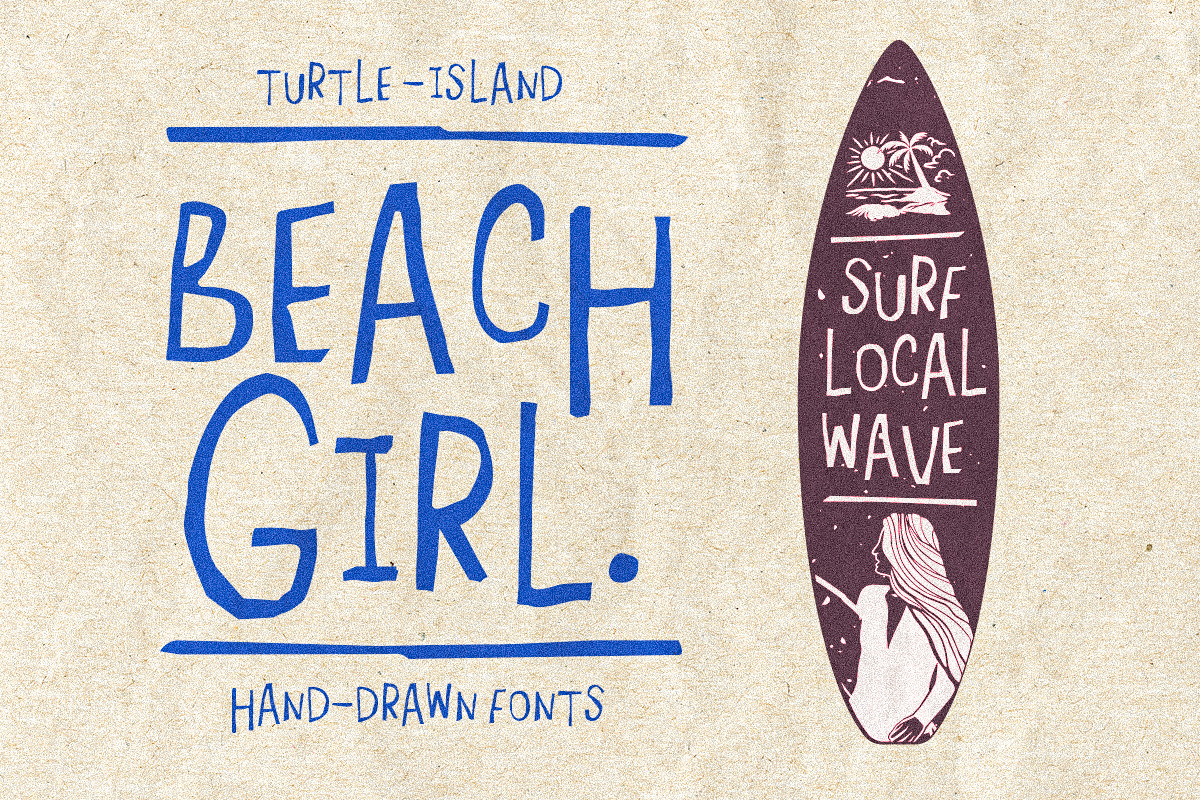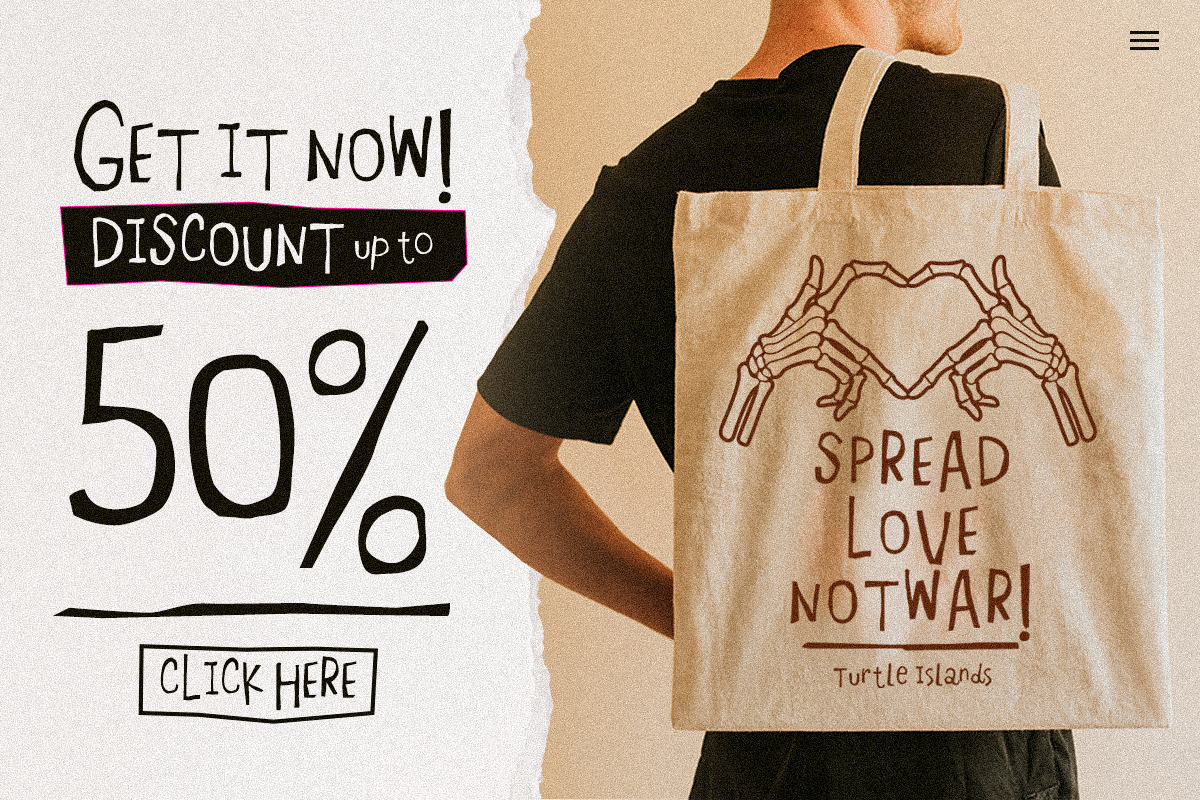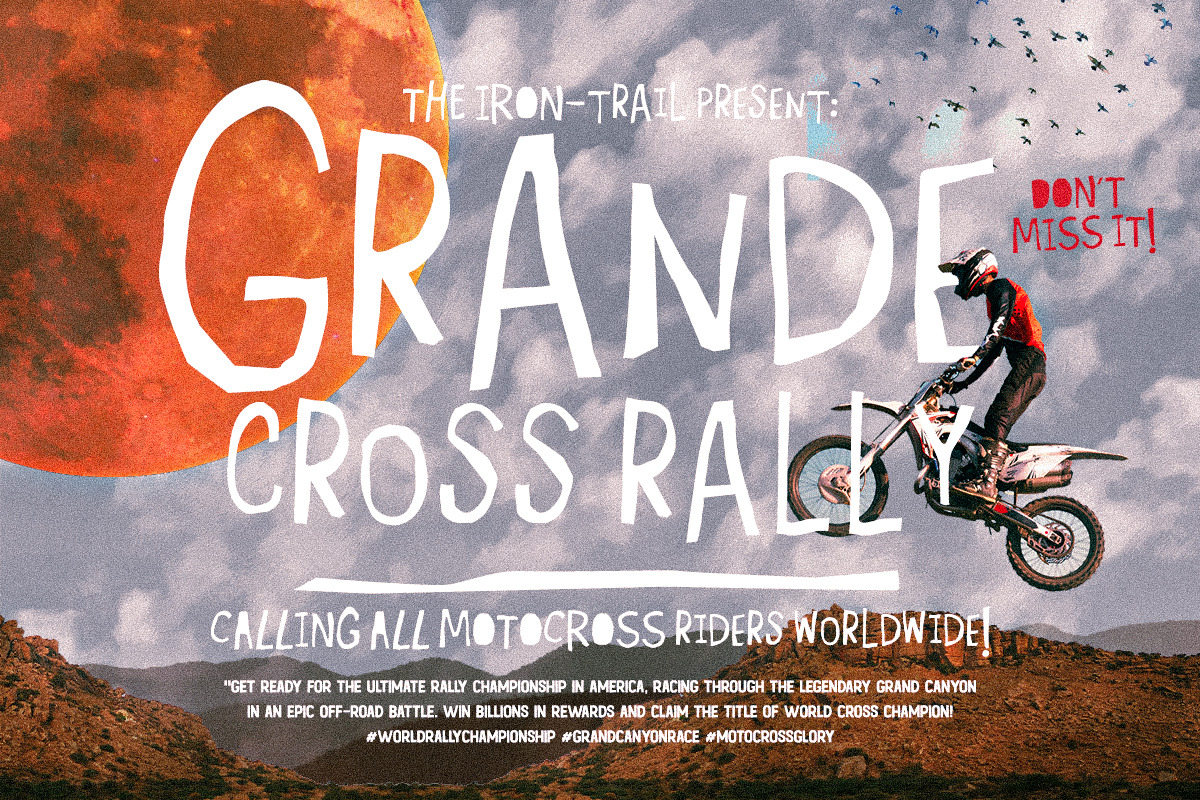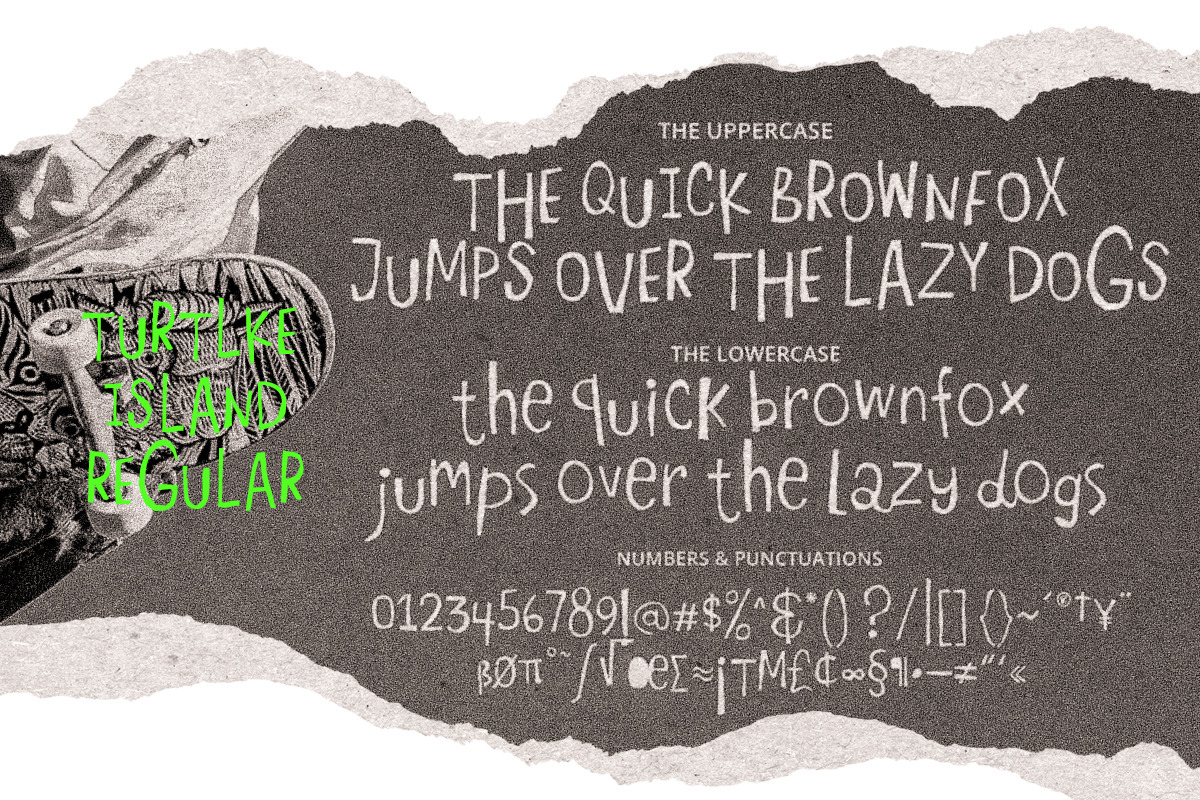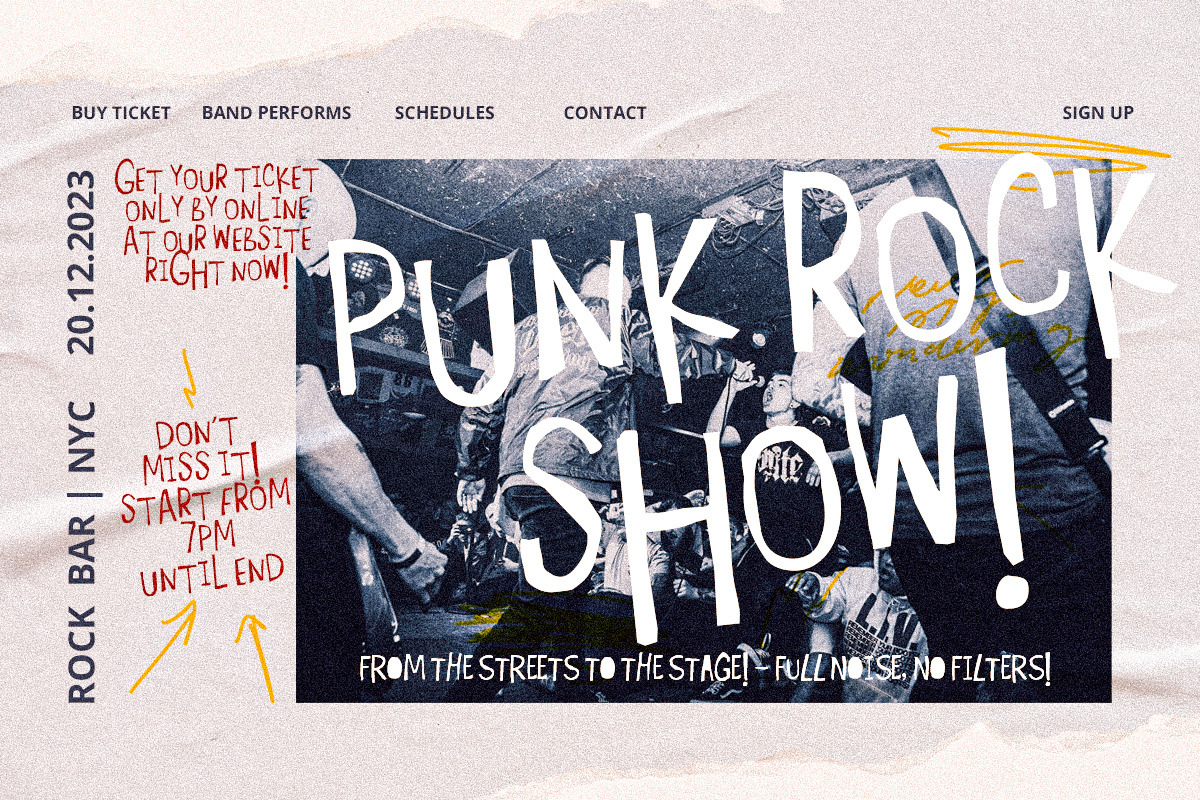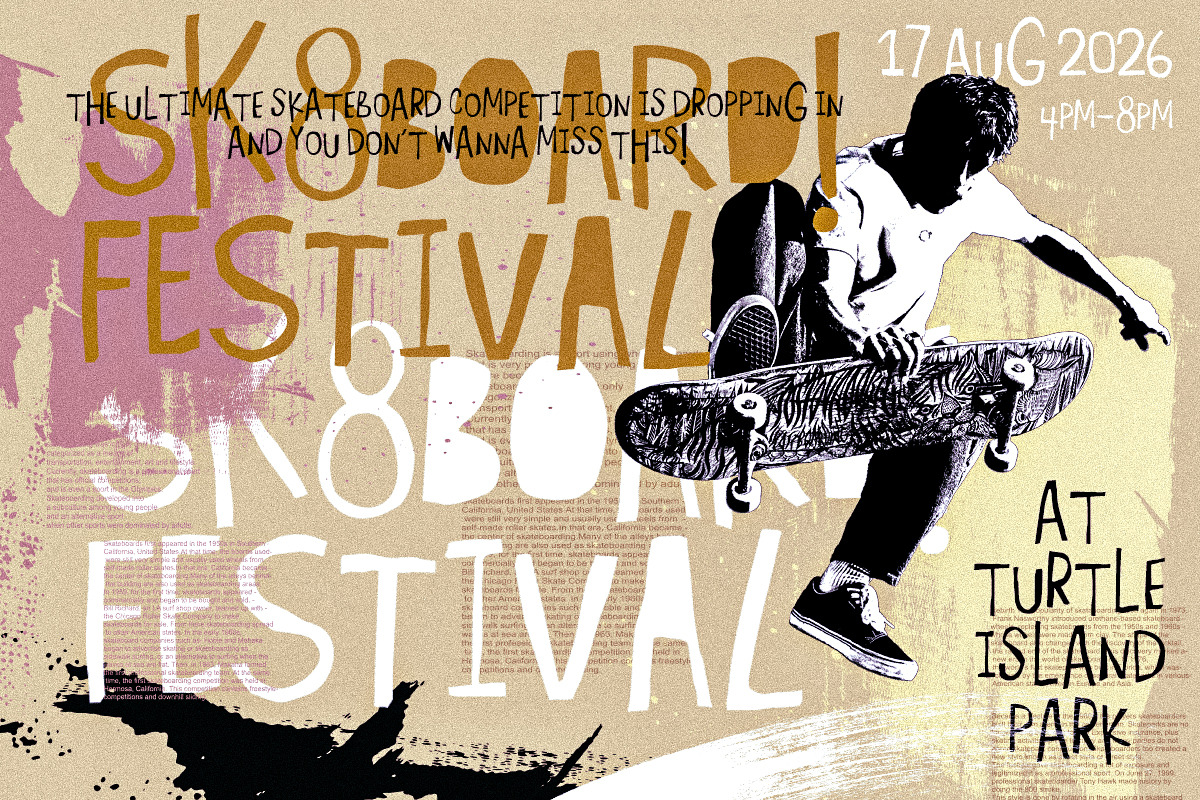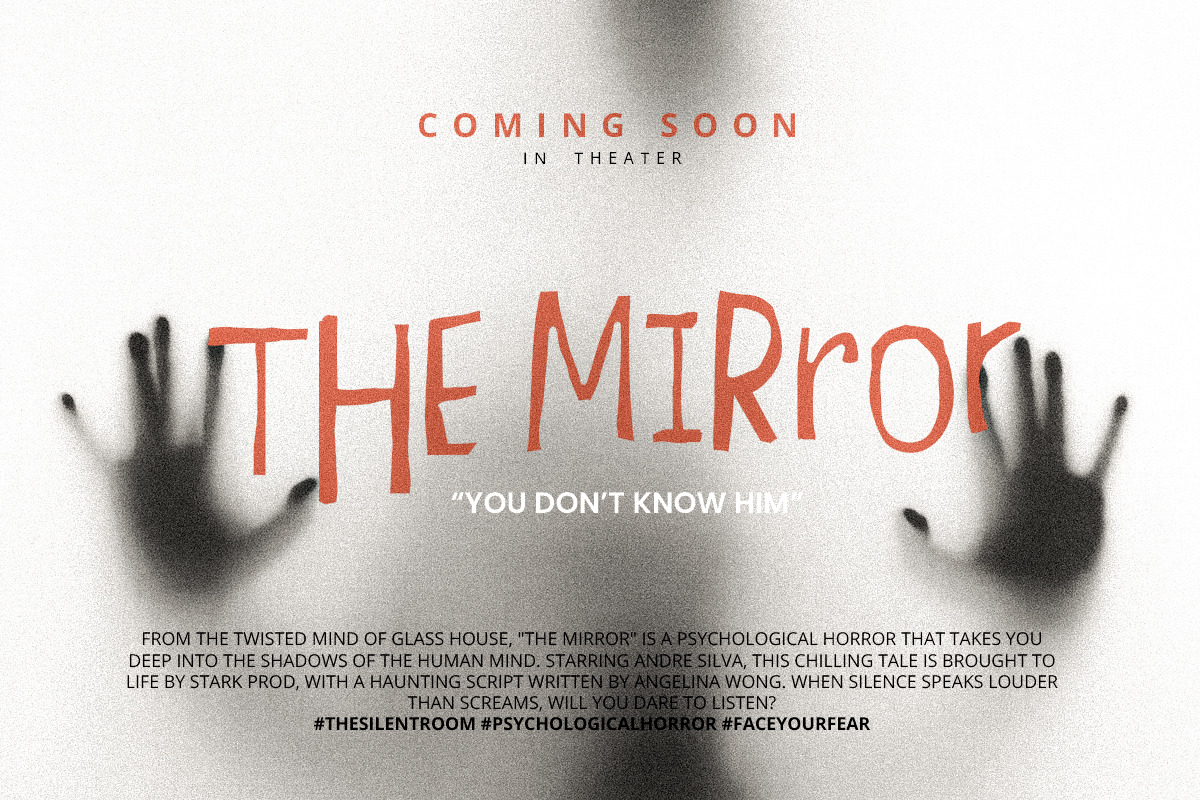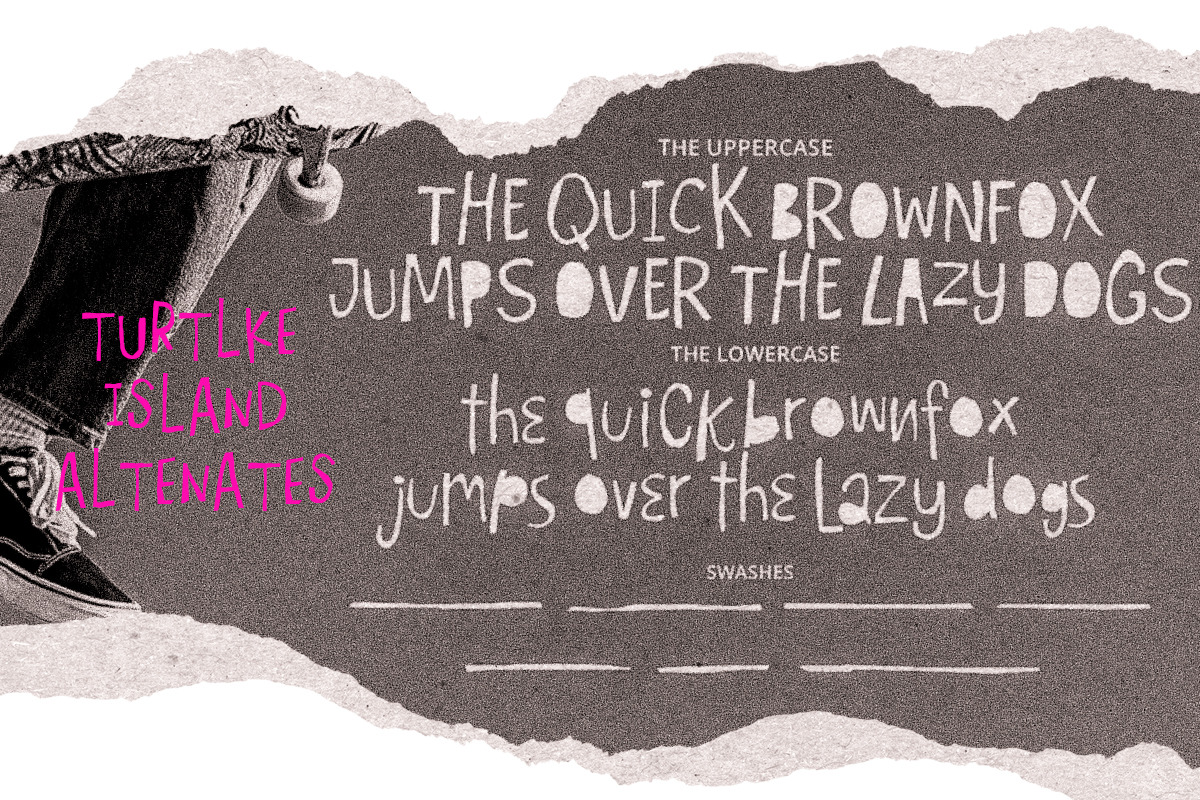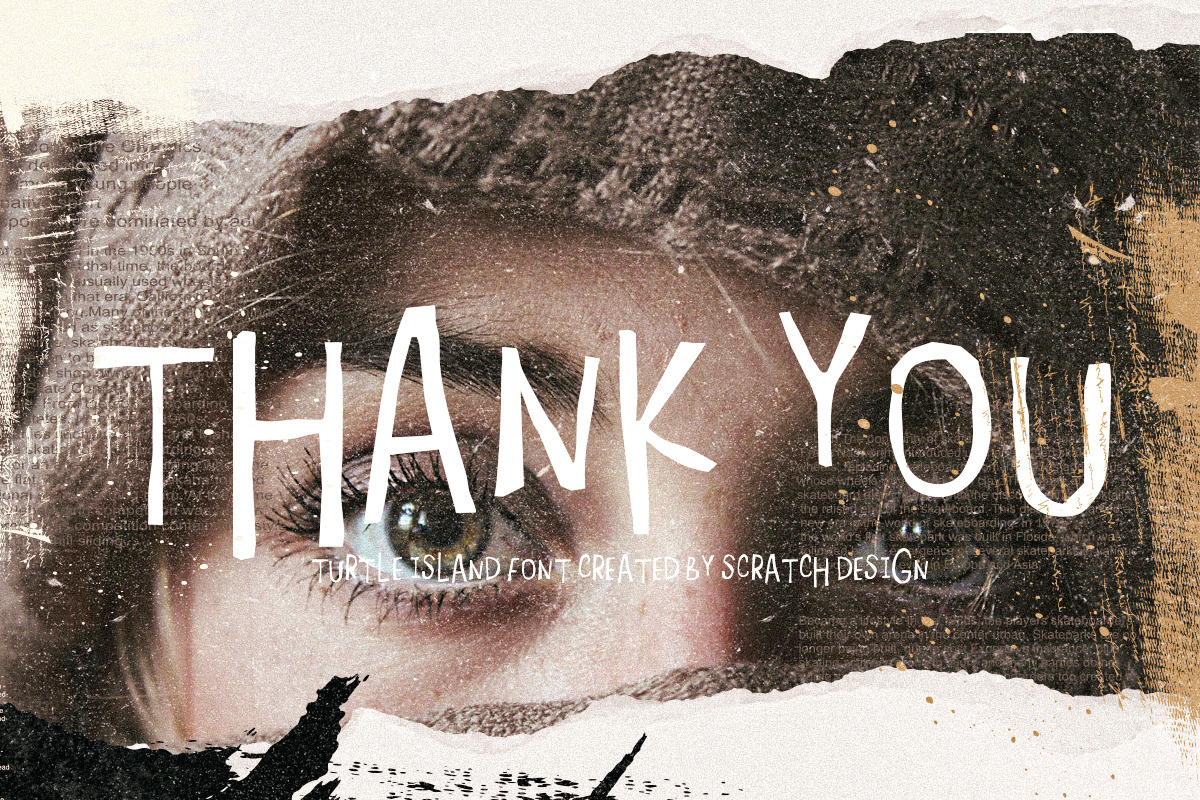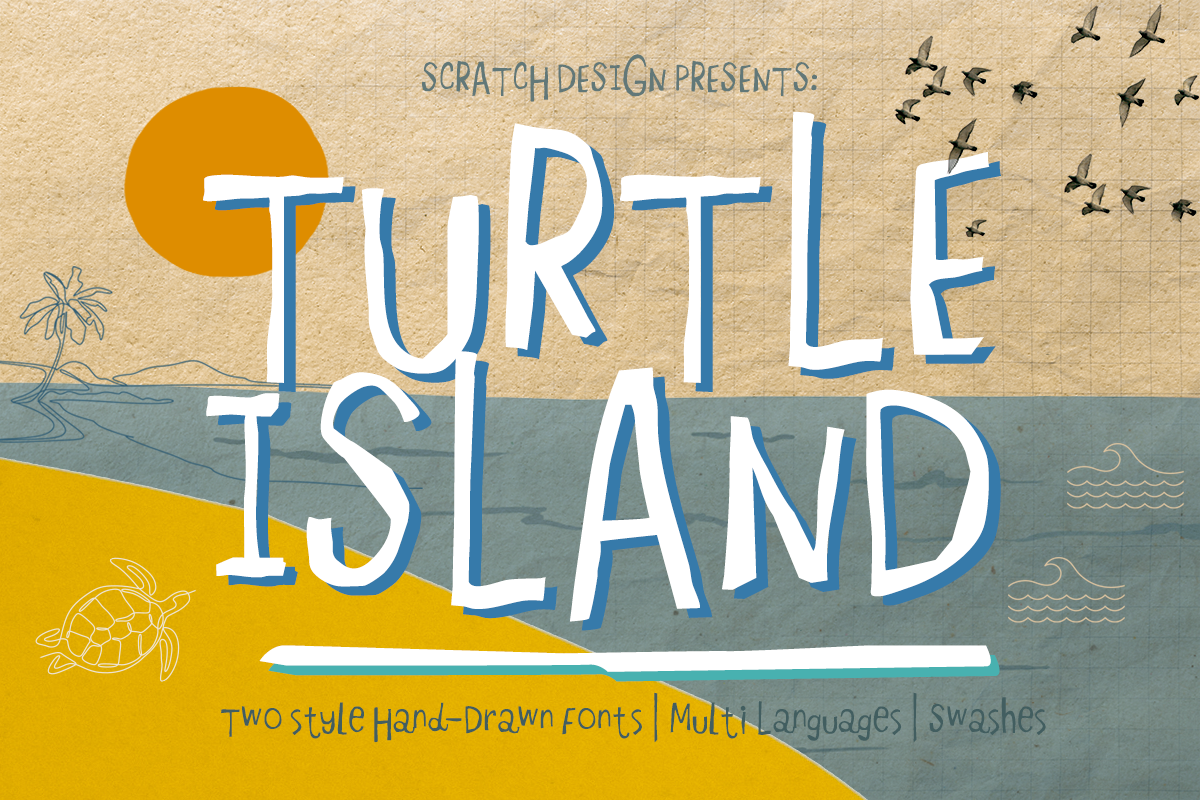
Turtle Island - Hand Drawn Font!
Introducing Turtle Island Font! A hand-drawn typeface that brings raw, authentic energy to your design. Turtle Island comes in two unique styles that can be beautifully combined, giving you flexibility and character in every layout.
With its natural ink strokes and handcrafted charm, this font is perfect for free-spirited, artistic, and vintage-inspired projects. Whether you're designing film posters with thriller or horror themes, music posters for rock, punk, or alternative genres, or packaging and apparel that need a bold personal touch Turtle Island delivers.
Its naïve, expressive shapes capture the true essence of hand-drawn lettering, born directly from the designer's ink strokes. No filter, no compromise just pure typographic personality.